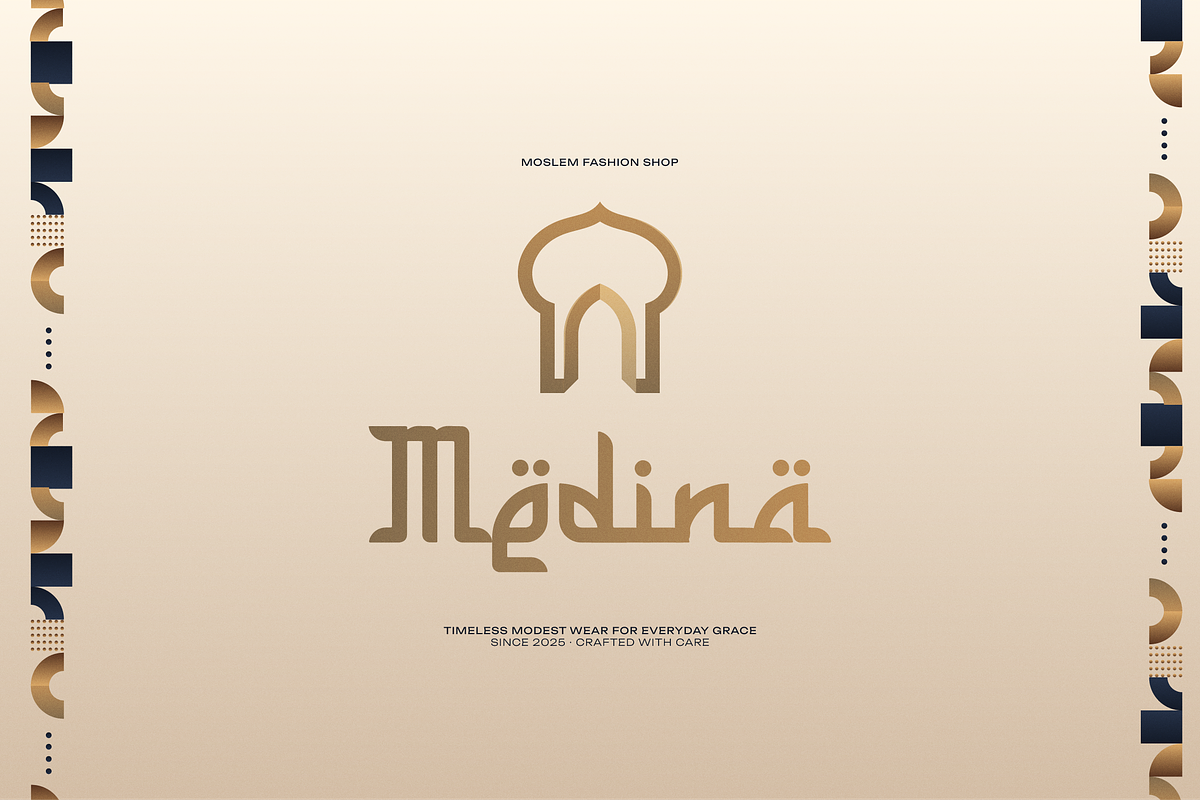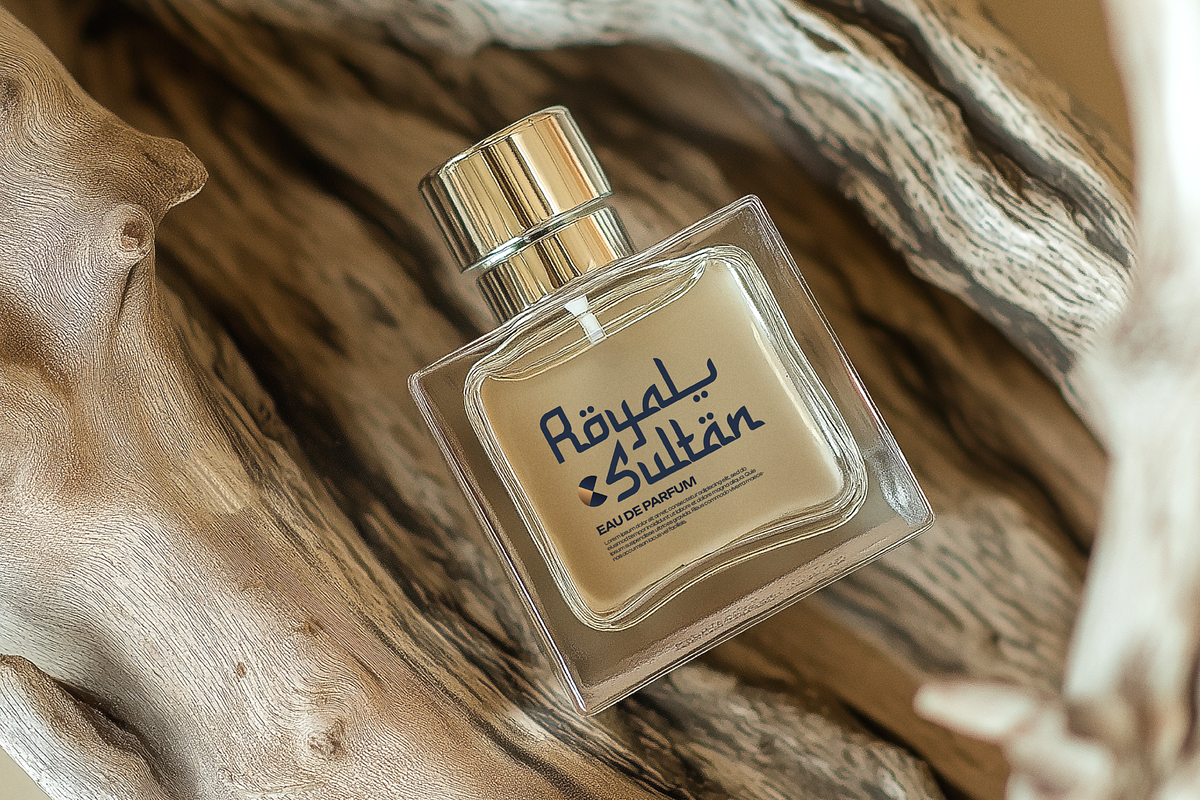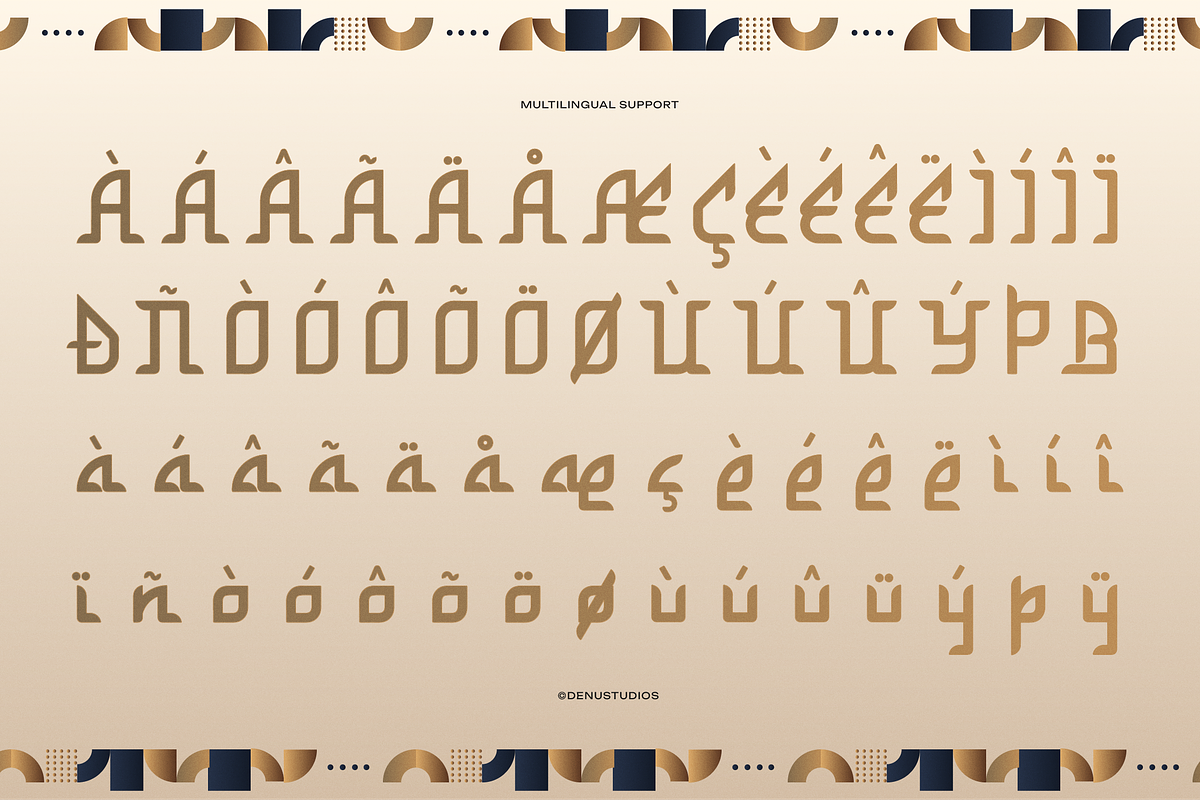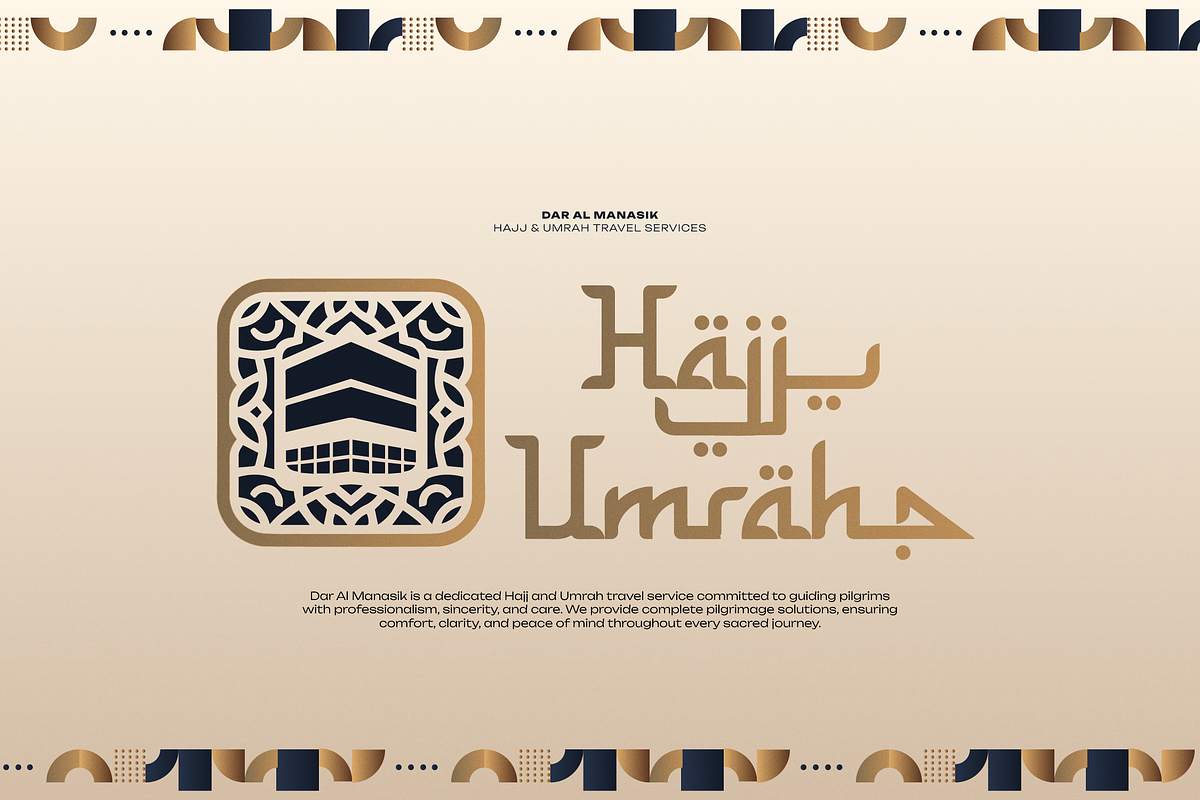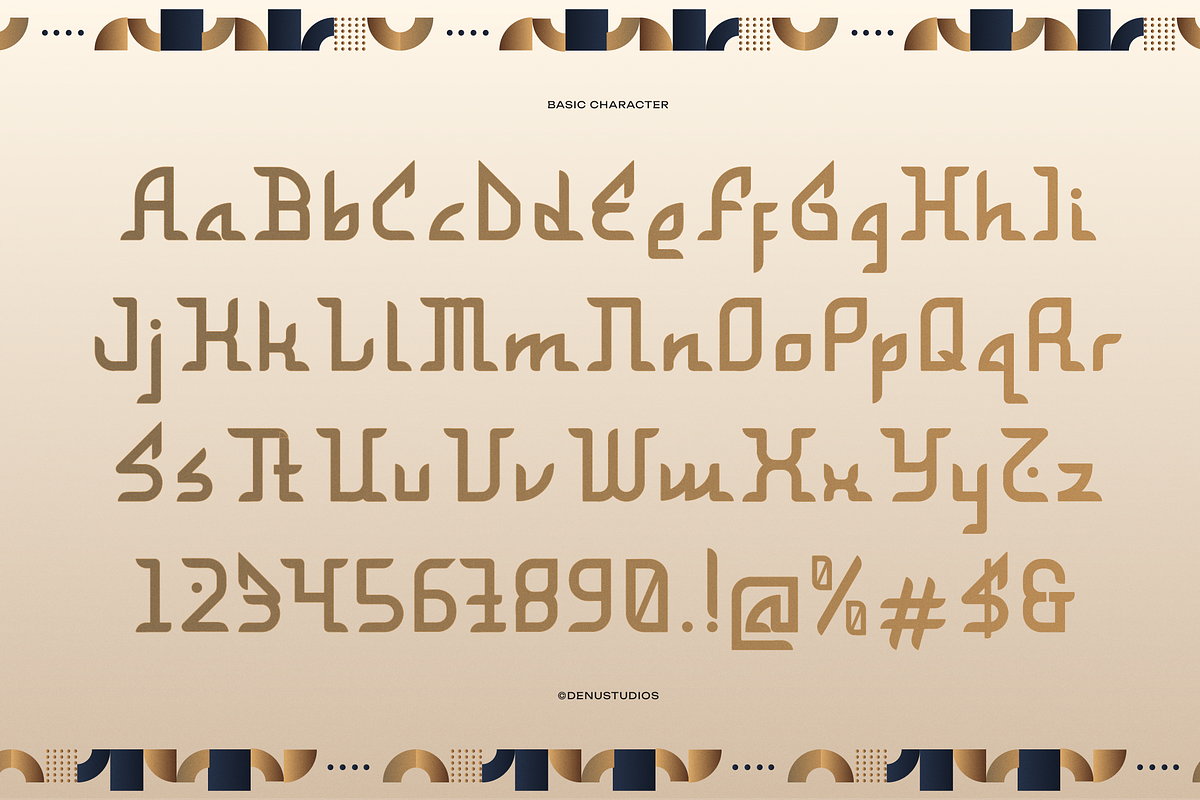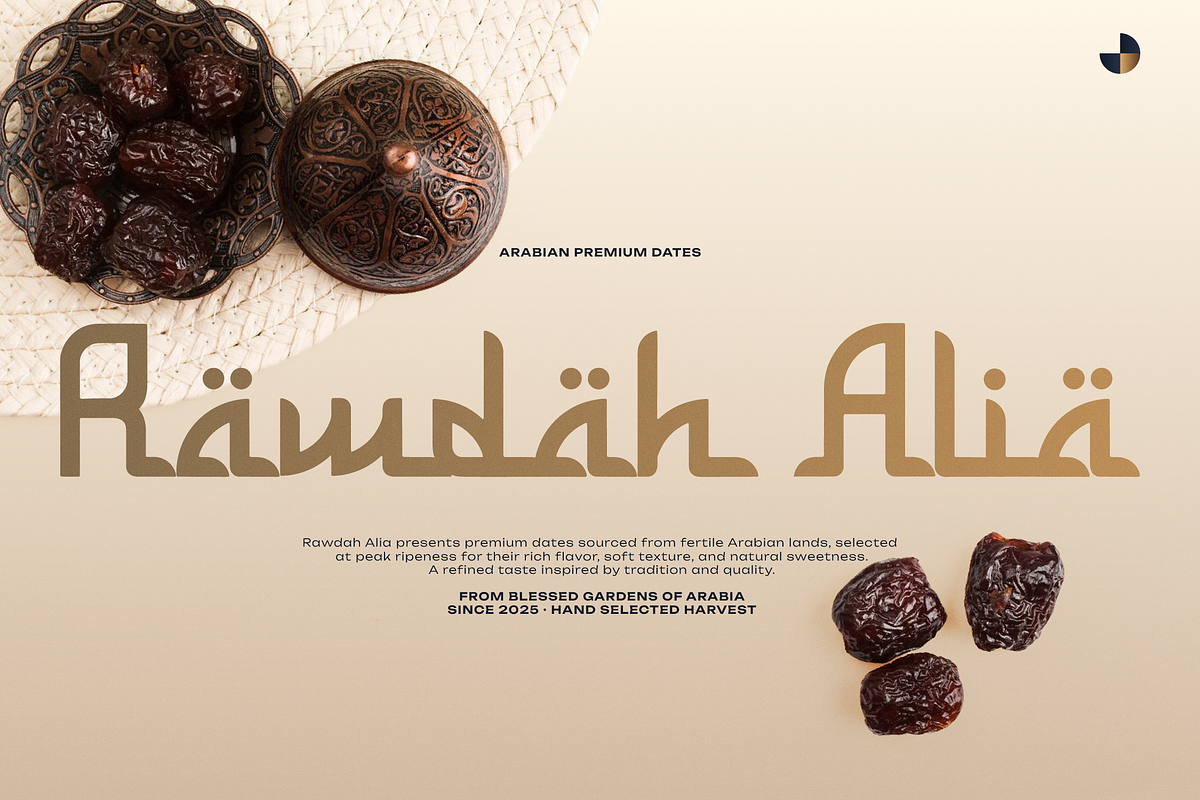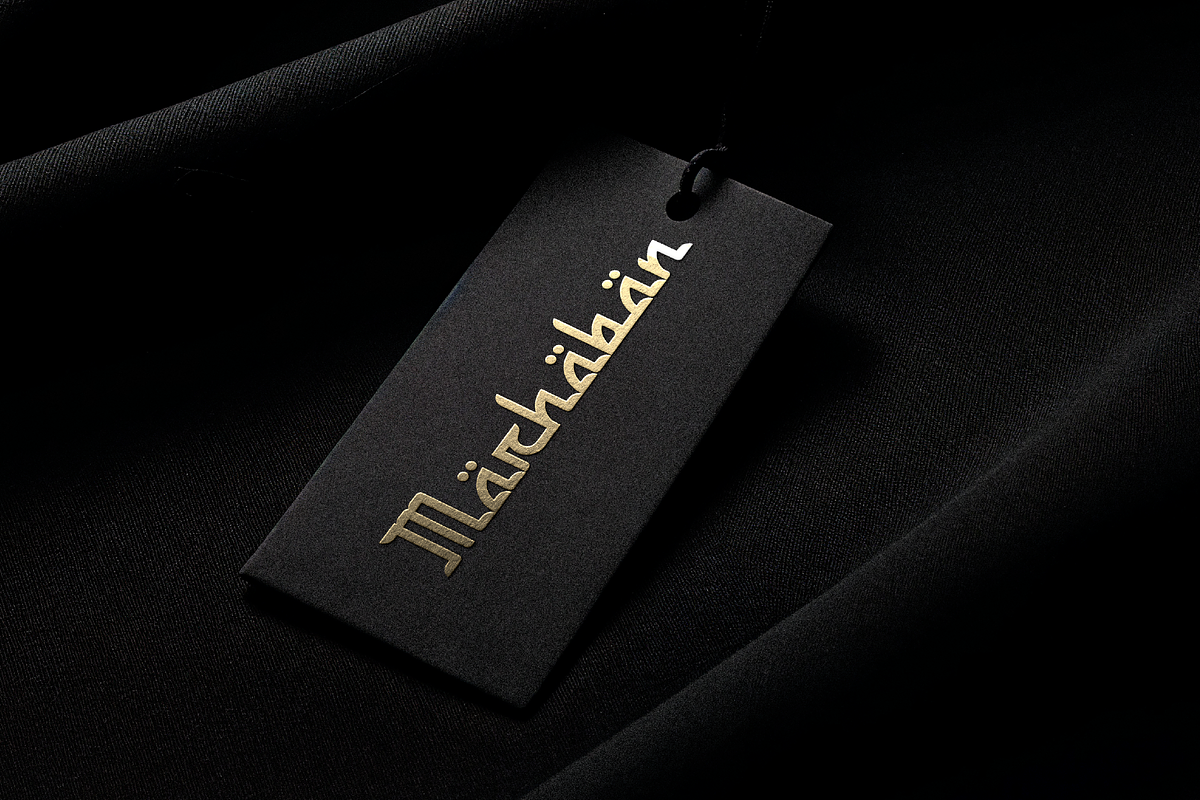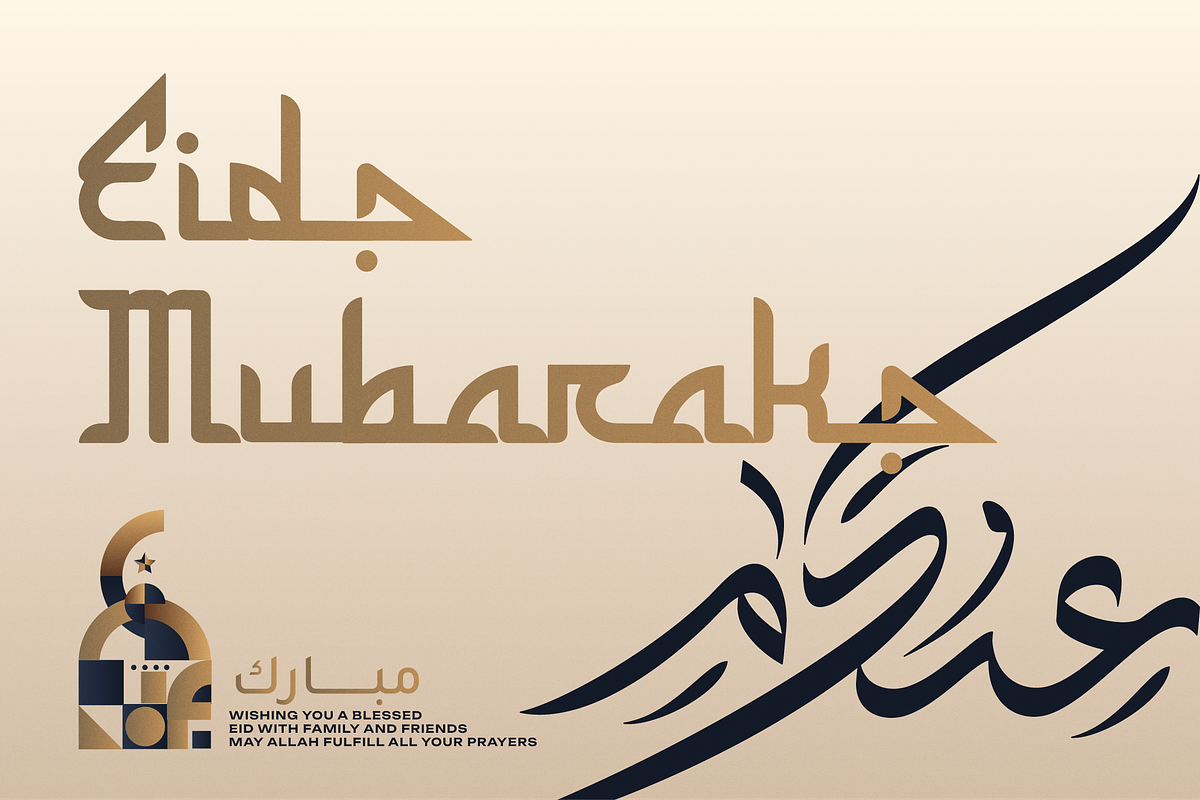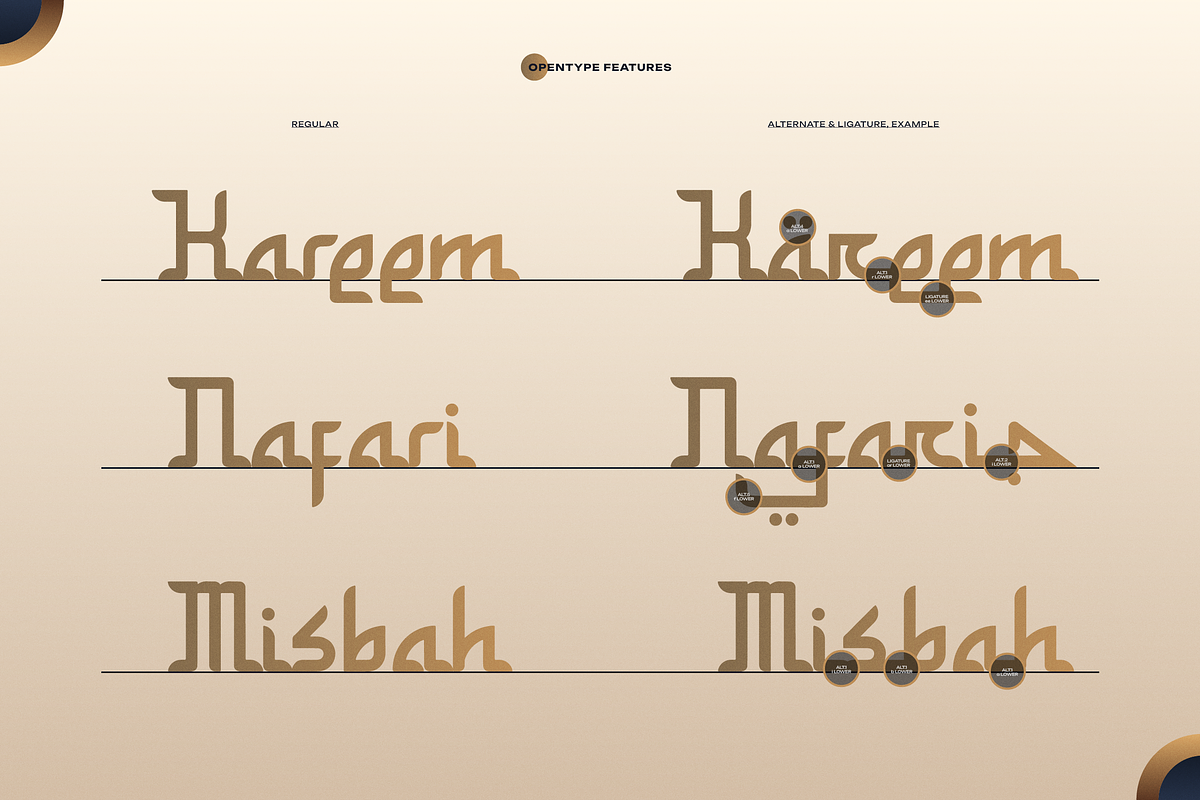
Ar Rihala | Arabic Typeface
Ar Rihala | Arabic Typeface, from Denustudios, suitable for any projects such as: logos, branding projects, homeware designs, product packaging, mugs, quotes, posters, shopping bags, t-shirts, book covers, name card, invitation cards, greeting cards, label, photography, watermark, special events, and all your other lovely projects that need a Arabic taste.